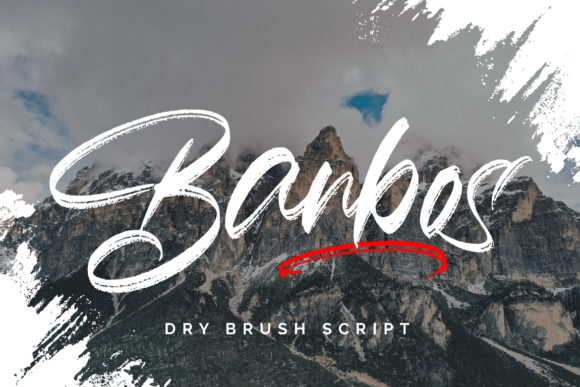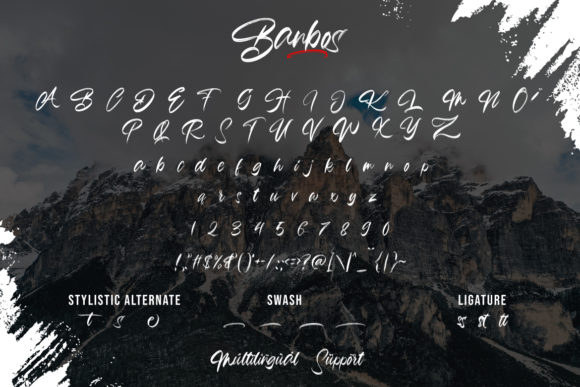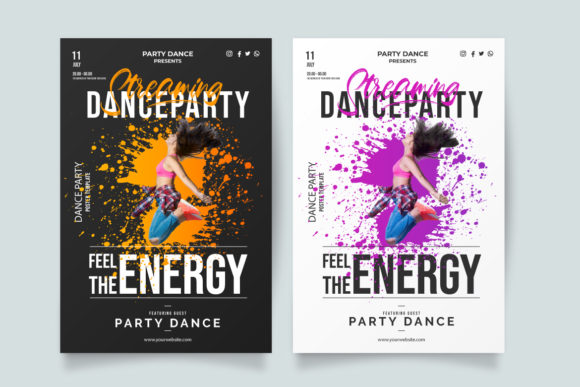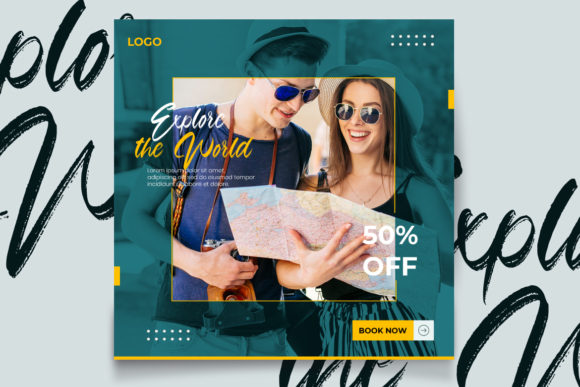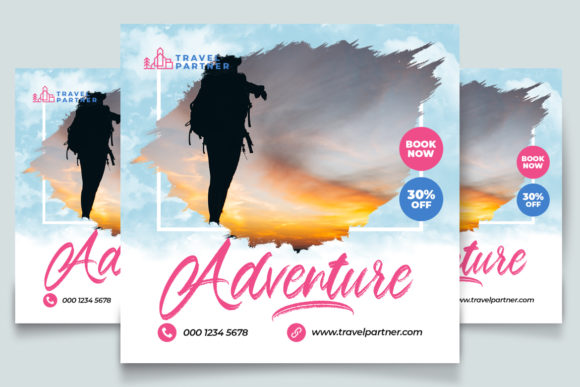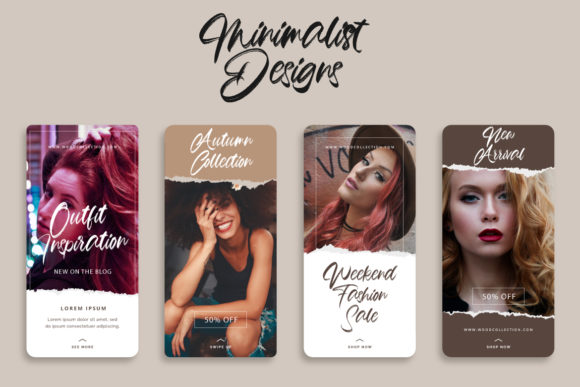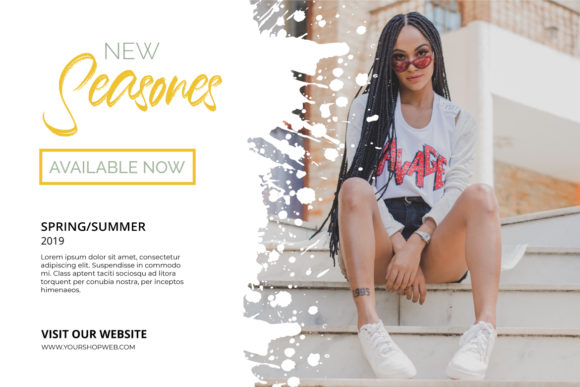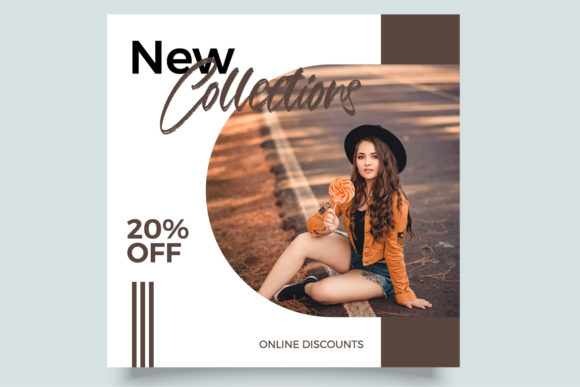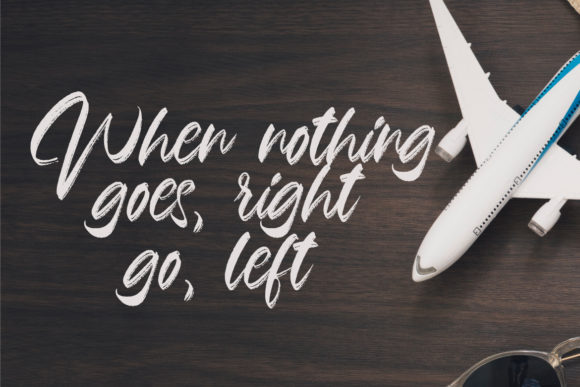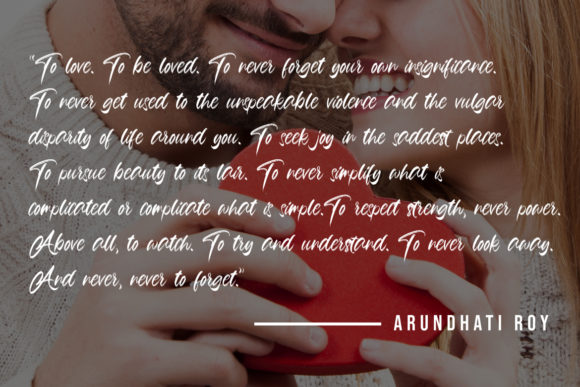
Banbos Font
About Banbos Font
Banbos is a cool brush handwritten font,created by using a brush pen. Clean and a little bit quirky, this font is the perfect fit for all of your logos, branding, social media, and crafty DIY projects.